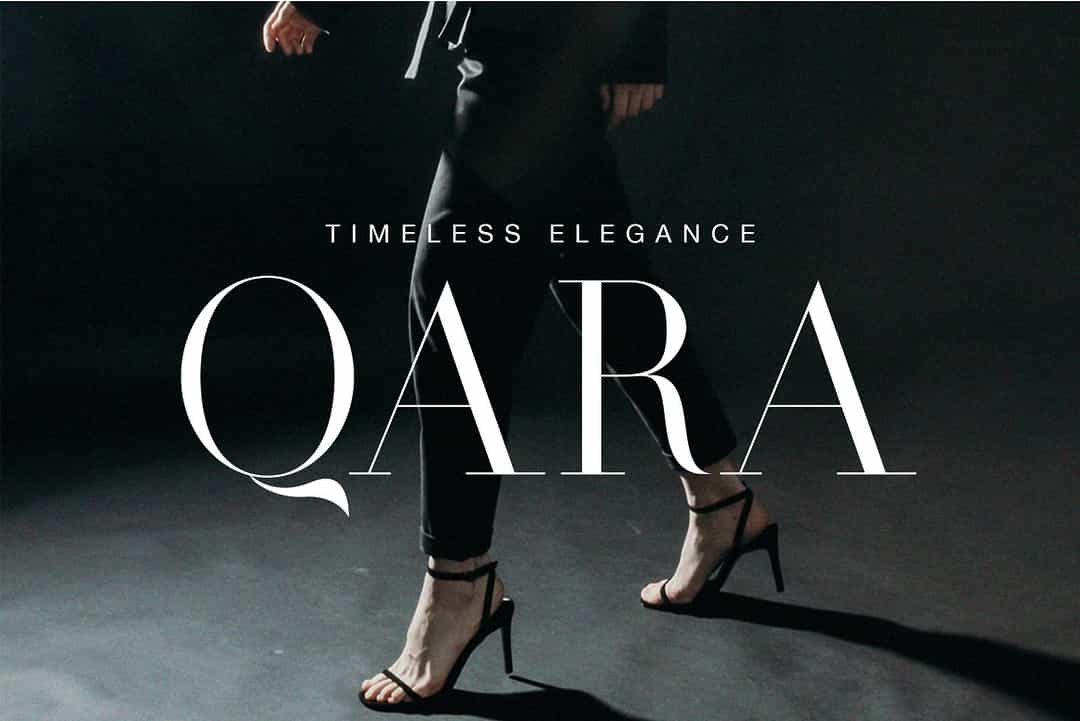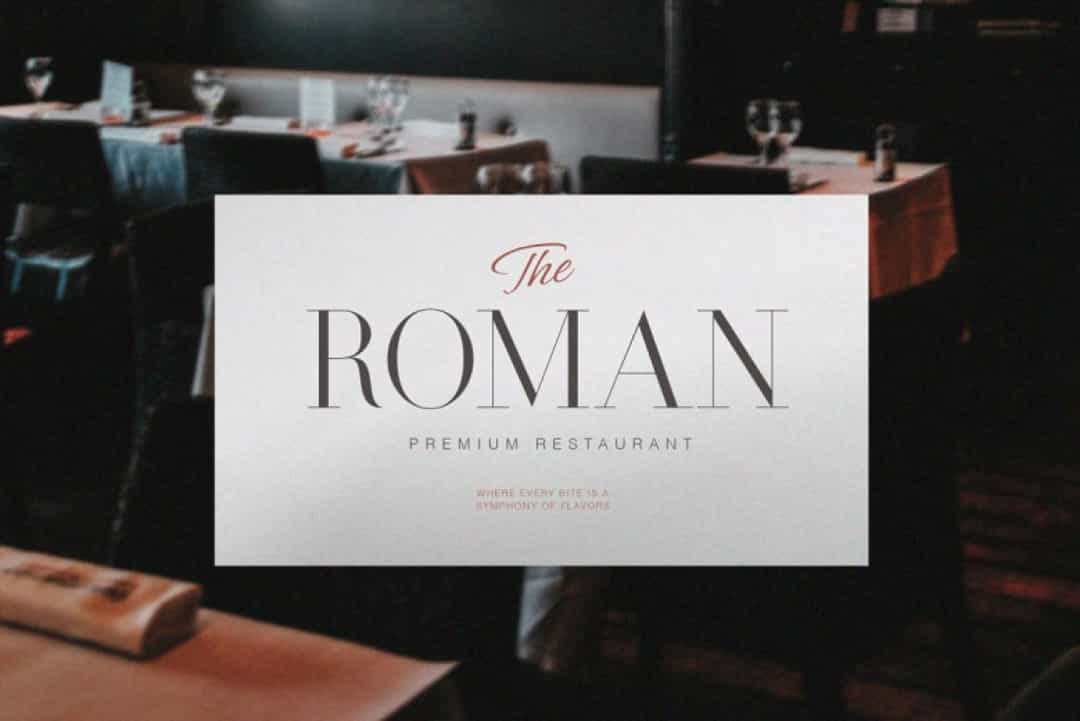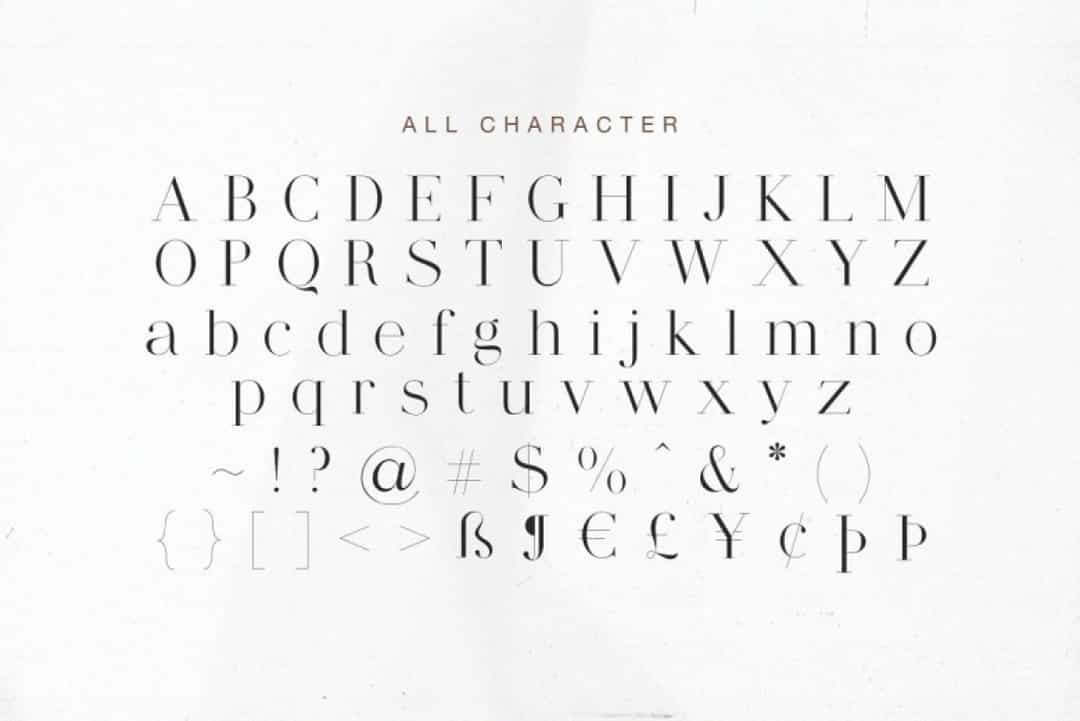
Qara is an elegant Didot serif typeface with an alluring style that exudes sophistication, luxury, and a sense of style. With its striking features such as serifs that radiate sophistication and luxury, as well as its sophisticated and sleek appearance, Qara stands out in any design with an unforgettable presence that adds class.